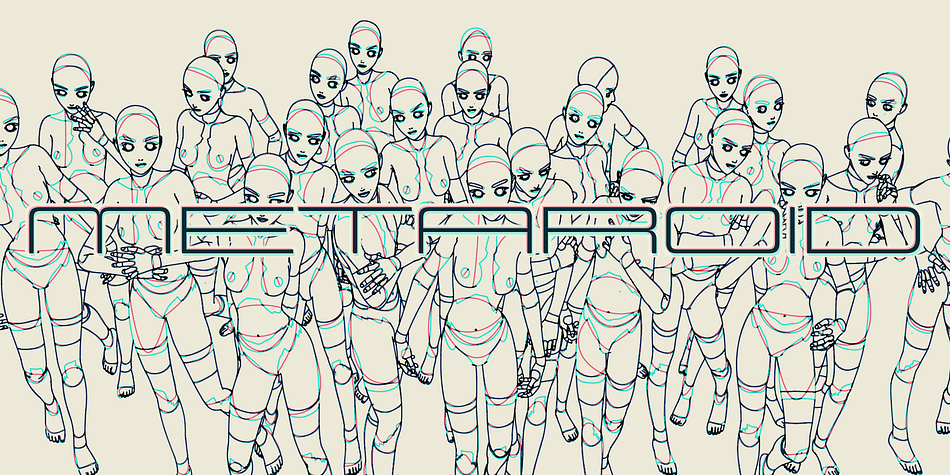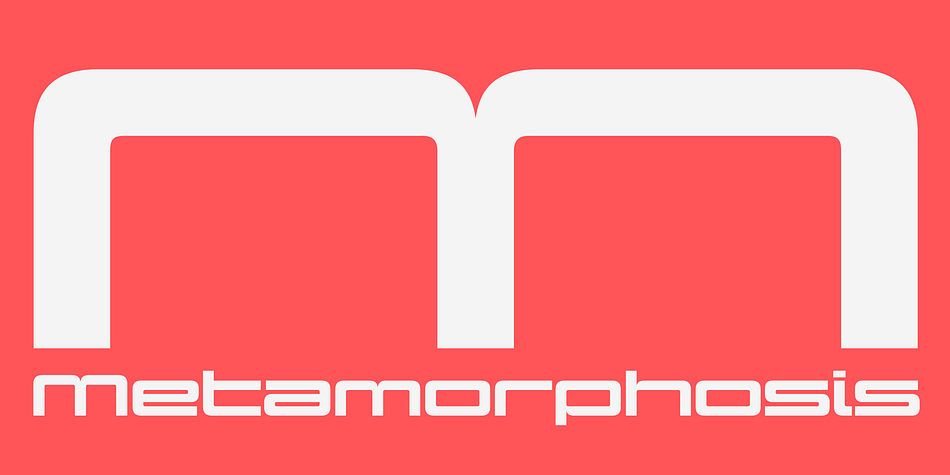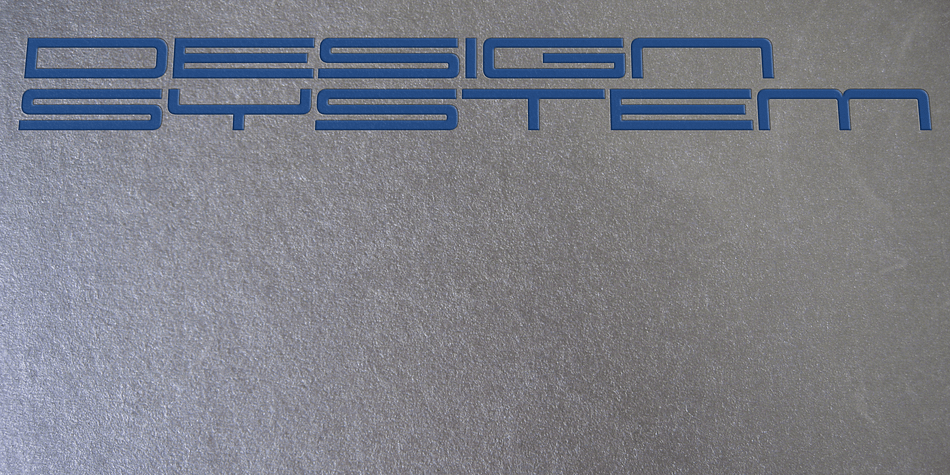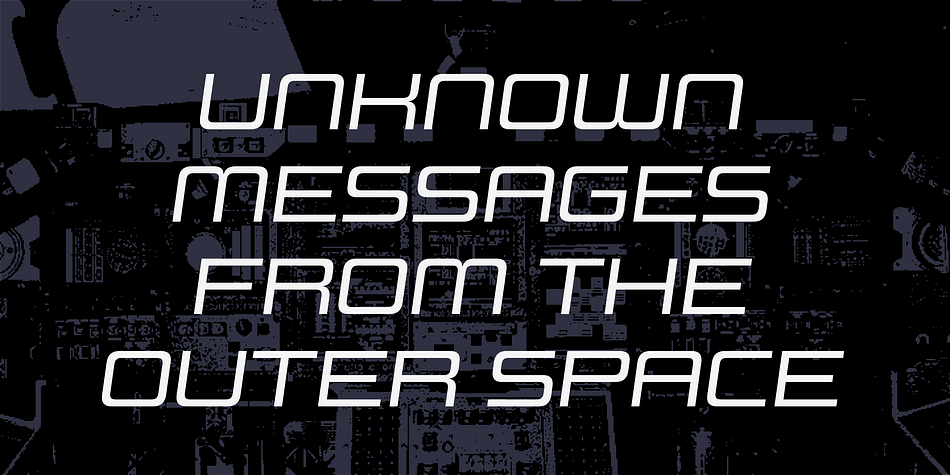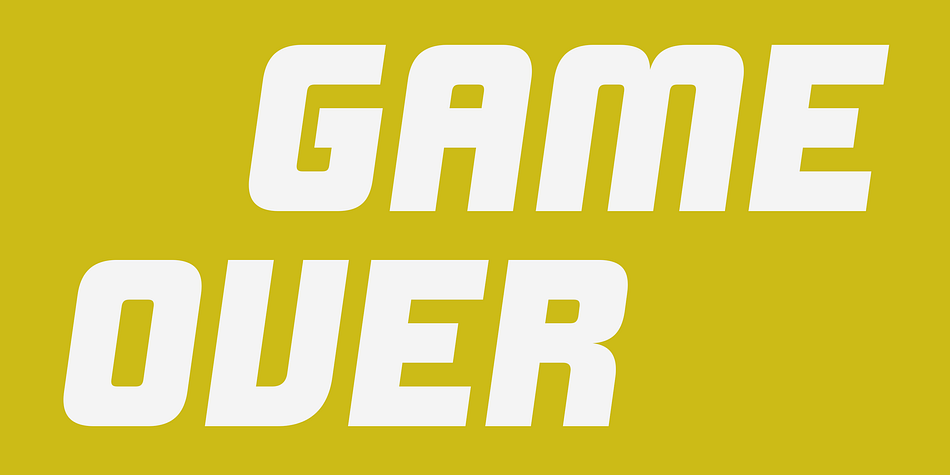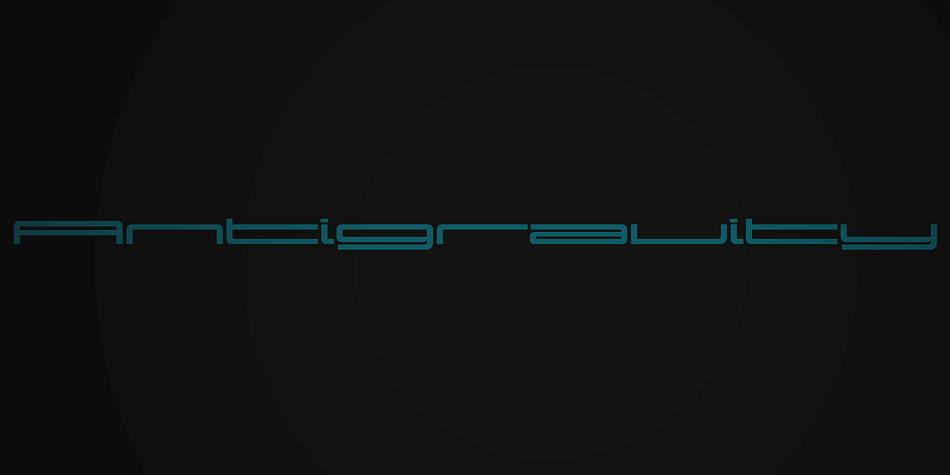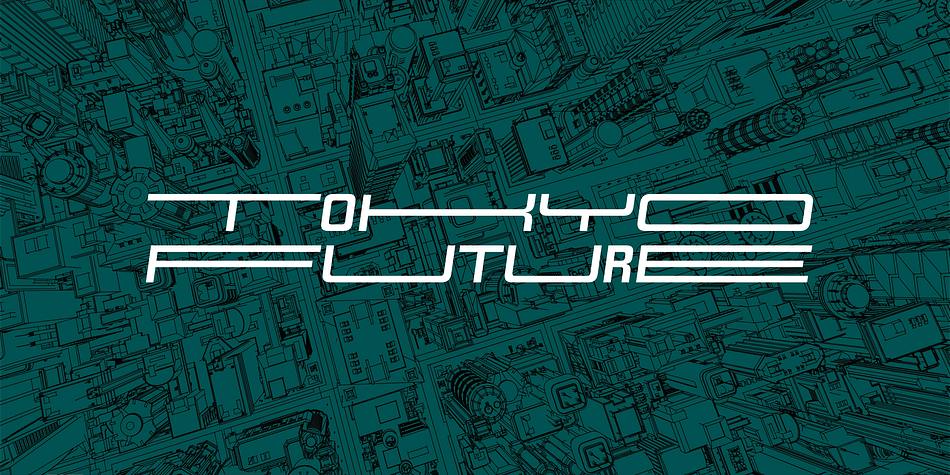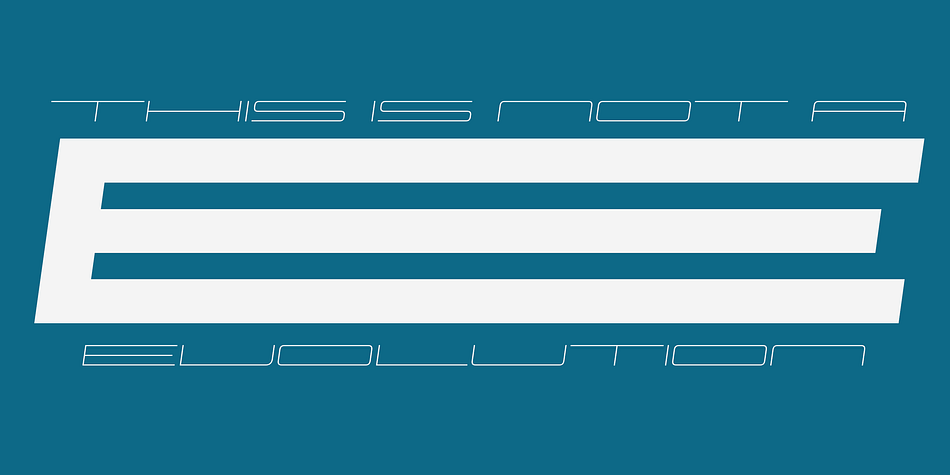
Design System E is a display sans font family. This typeface has ten styles and was published by Dharma Type.
Design System is a great type system consisted of 5X7X2=70 font styles from 70s-style simple square sans to the widest style of all time that are best for titles, logo and text.
Their simple form does not limit the target of design and can be used for any creative work.
Additionally they all have been designed not to provide a feeling of strangeness when they are used in mixture each others.